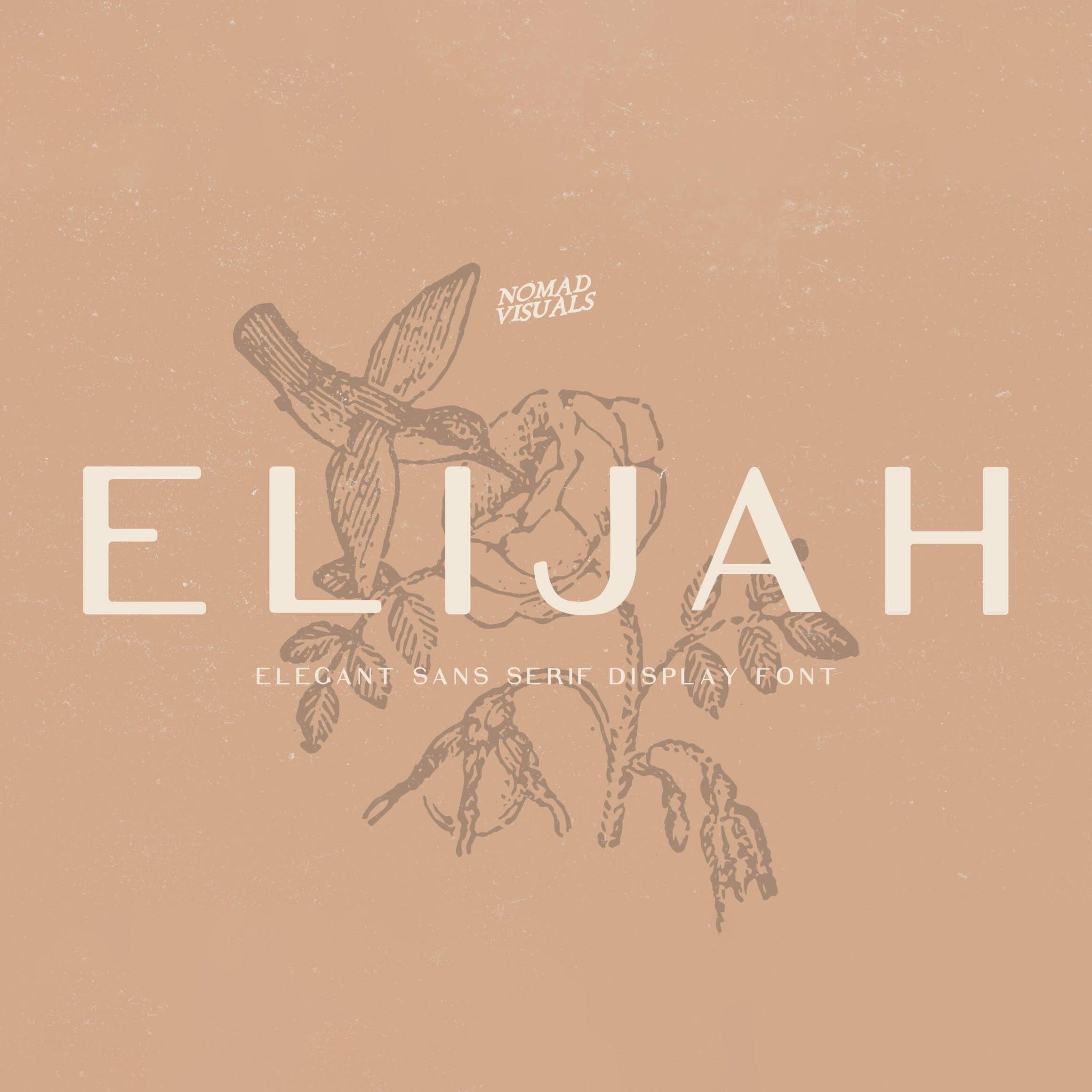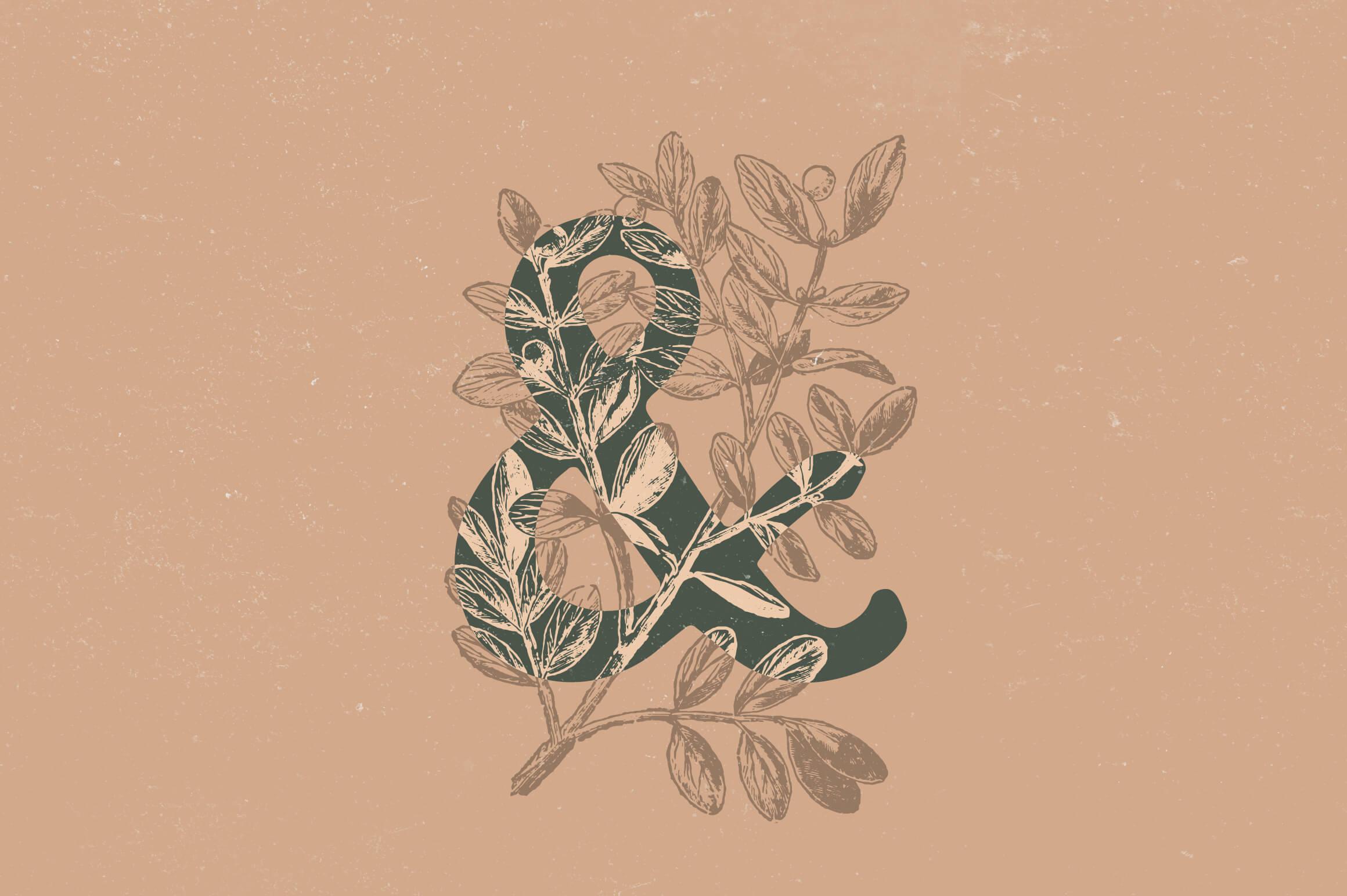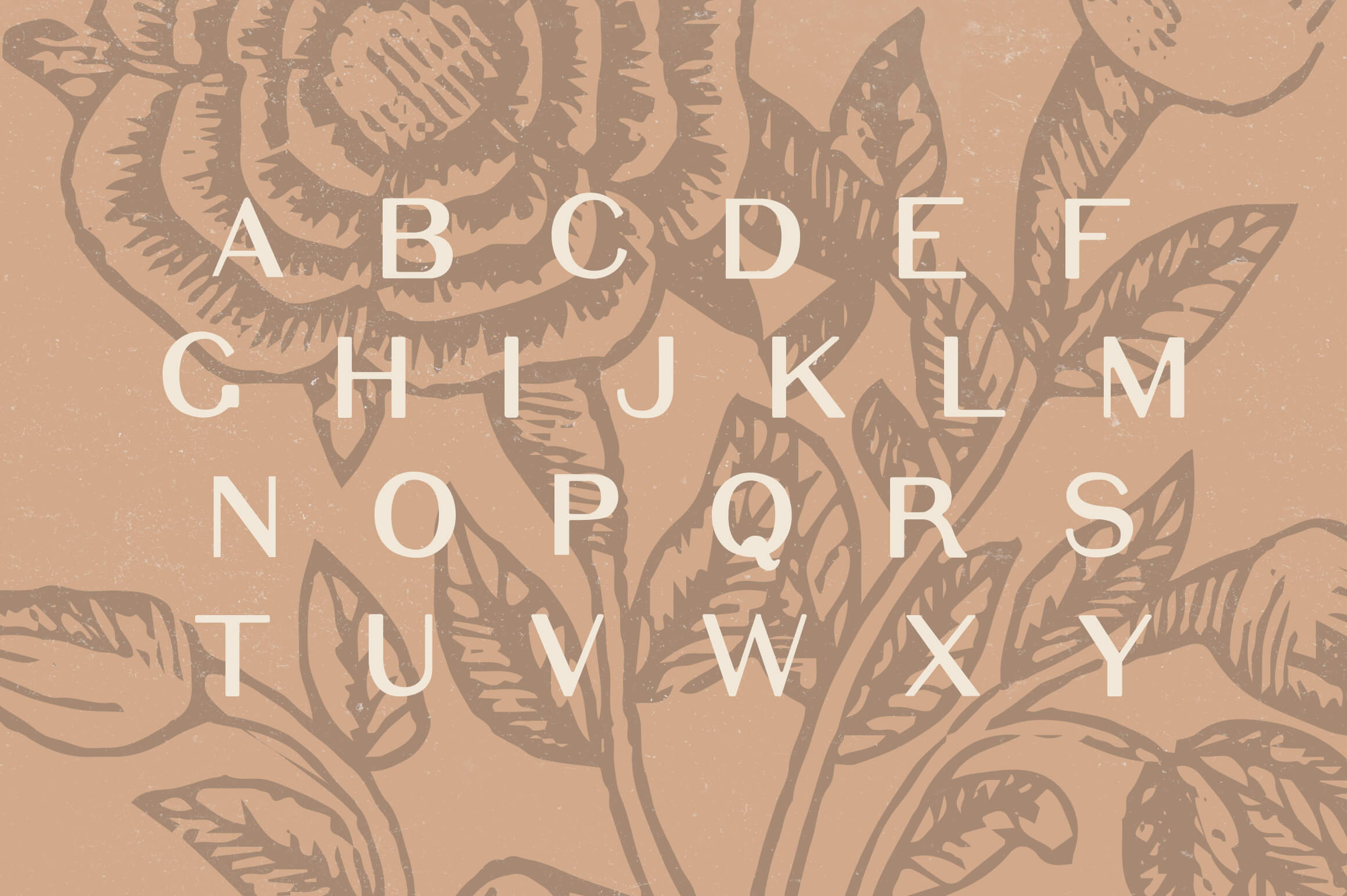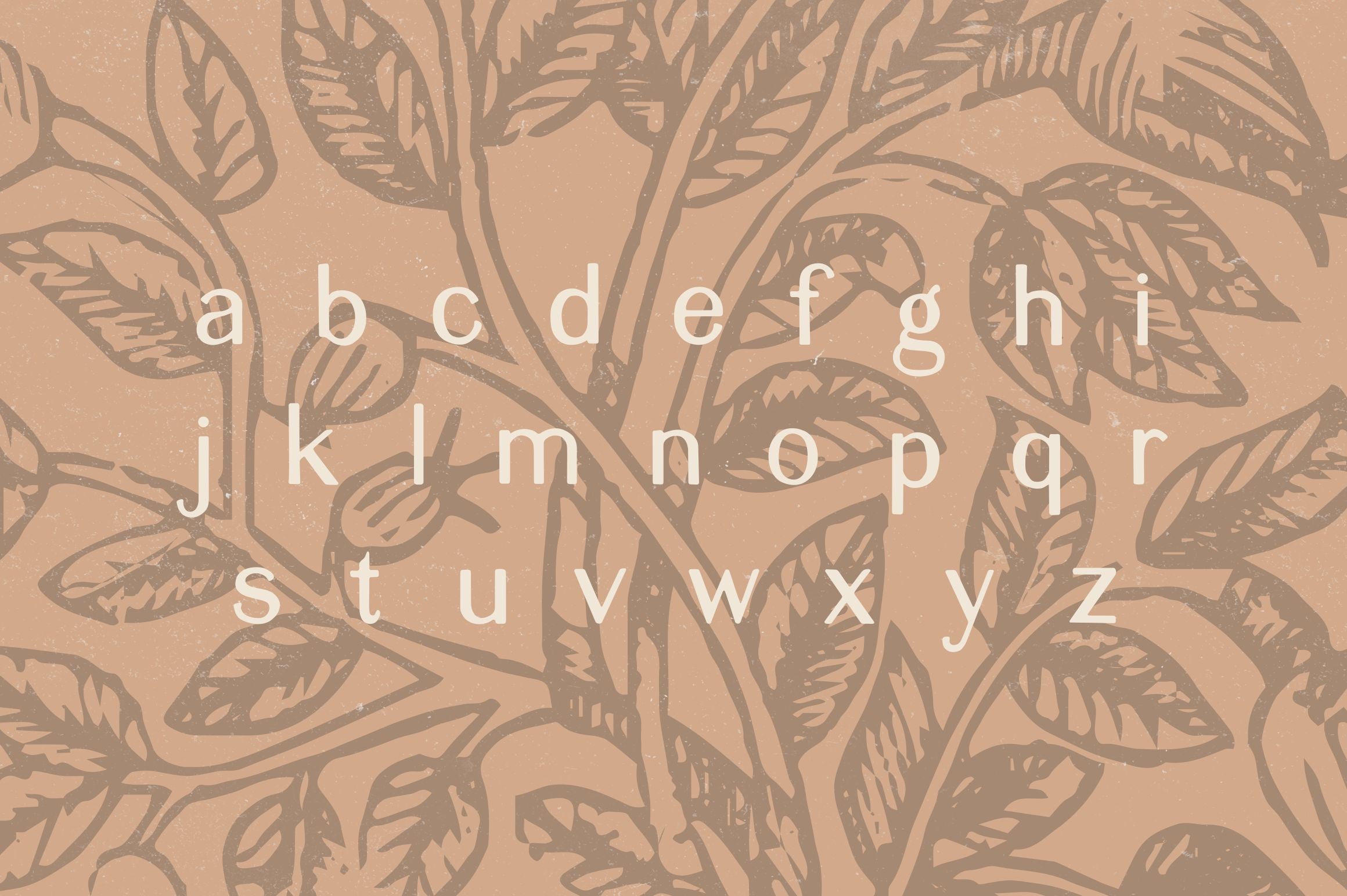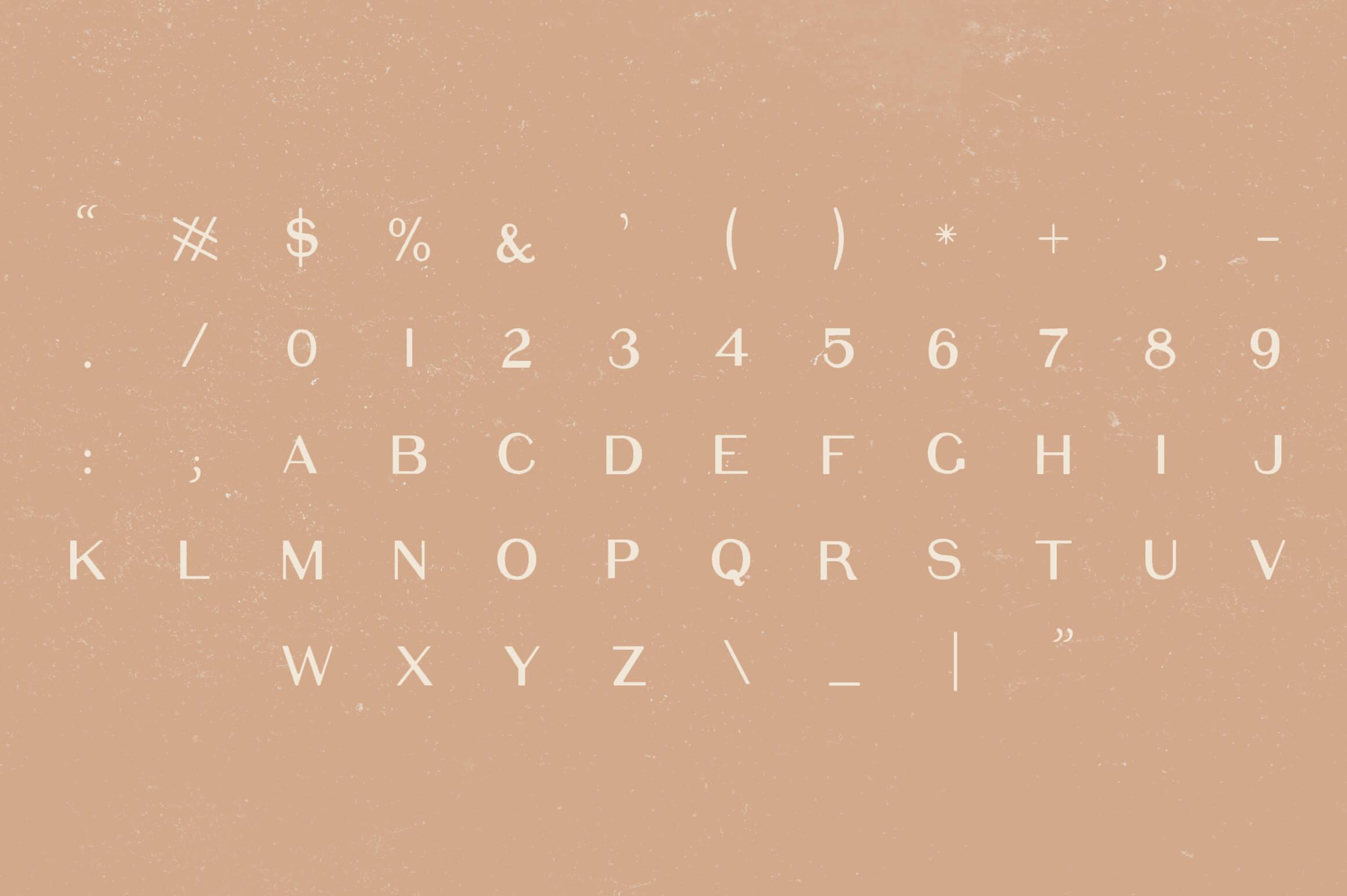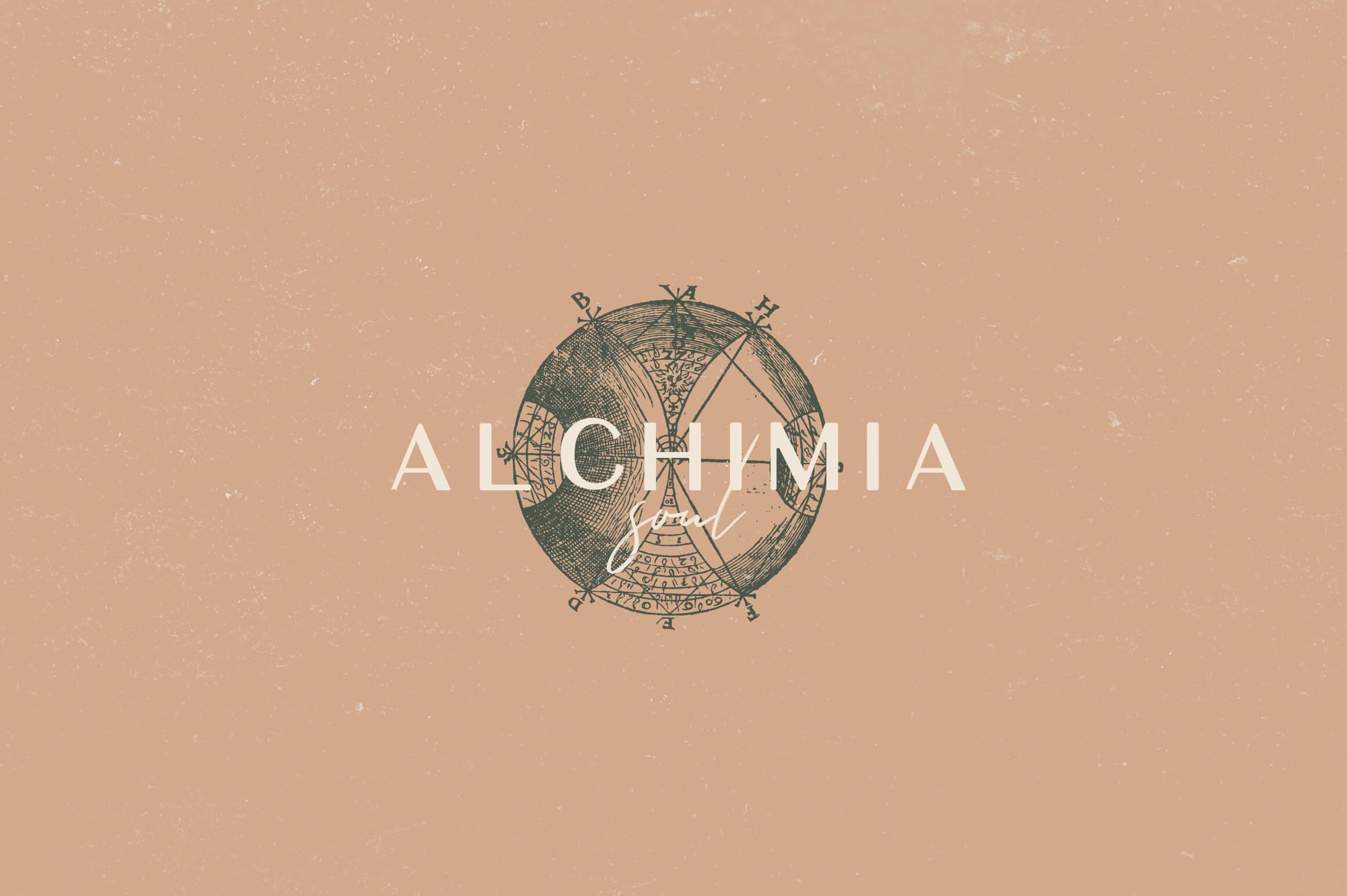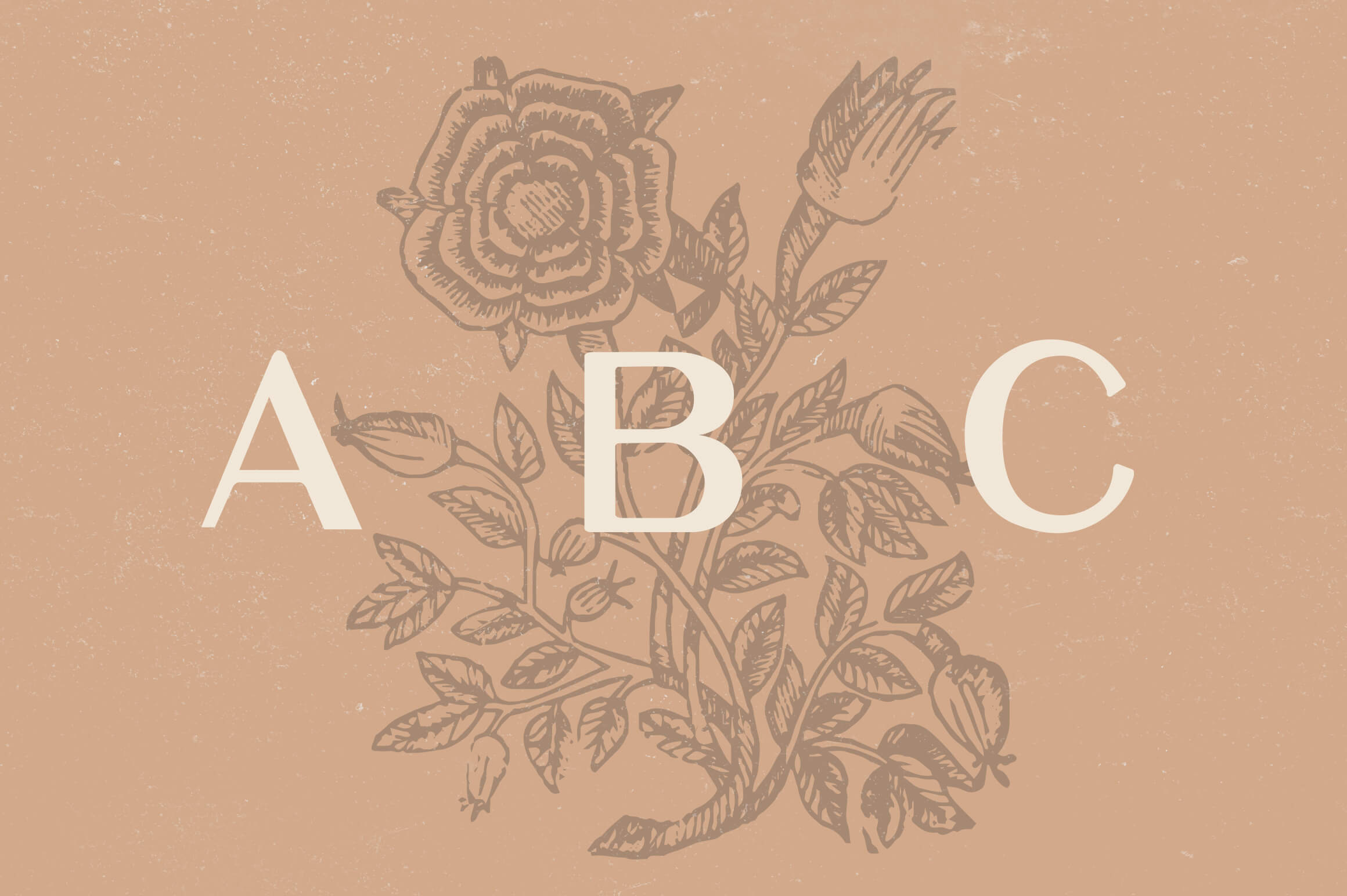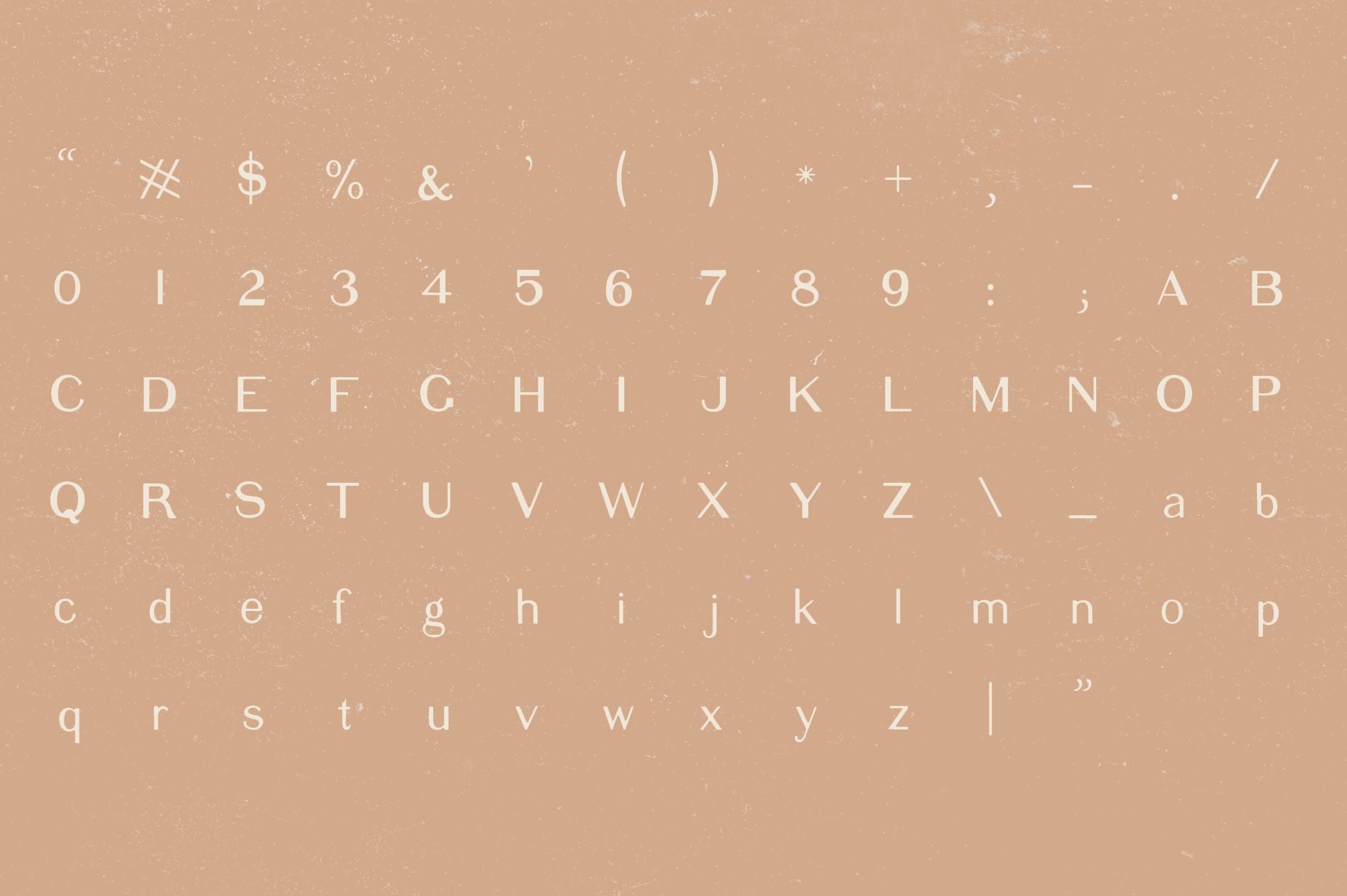
Elijah Sans Serif Display Font
The Elijah Sans Serif Display Font is a modern and elegant typeface featuring clean lines, smooth curves, and a refined aesthetic. It includes uppercase, lowercase, numbers, and punctuation, making it a versatile choice for various design projects.
Ideal for modern and elegant branding projects. Perfect for logo design, editorial layouts, and stylish headings, ensuring clarity and sophistication in every creative endeavor.